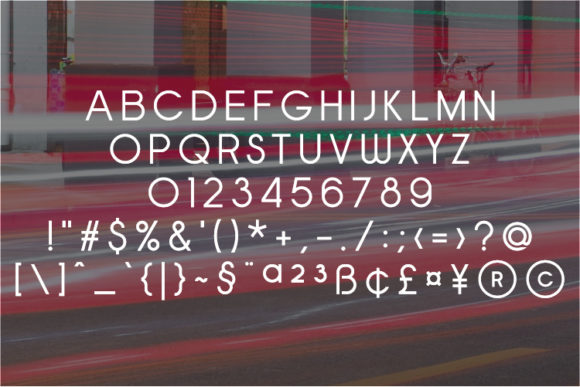
Introduction to Rameda Font
Rameda is an elegant sans serif font.
It will complement any design need perfectly with its perfectly balanced mix of the smooth and sharp .